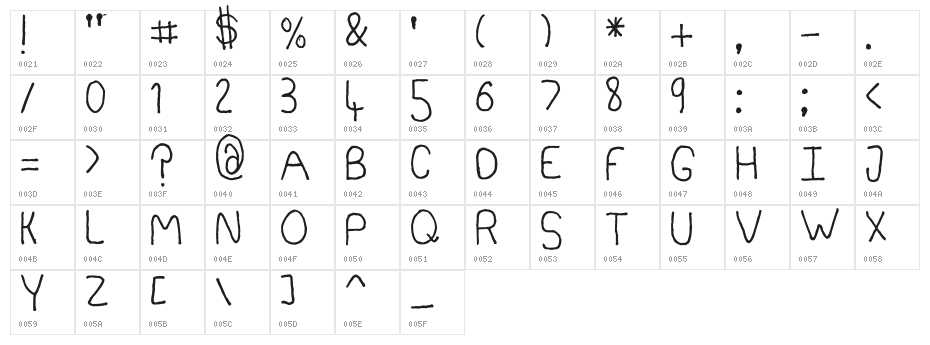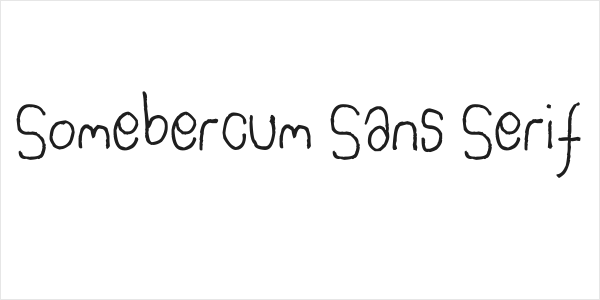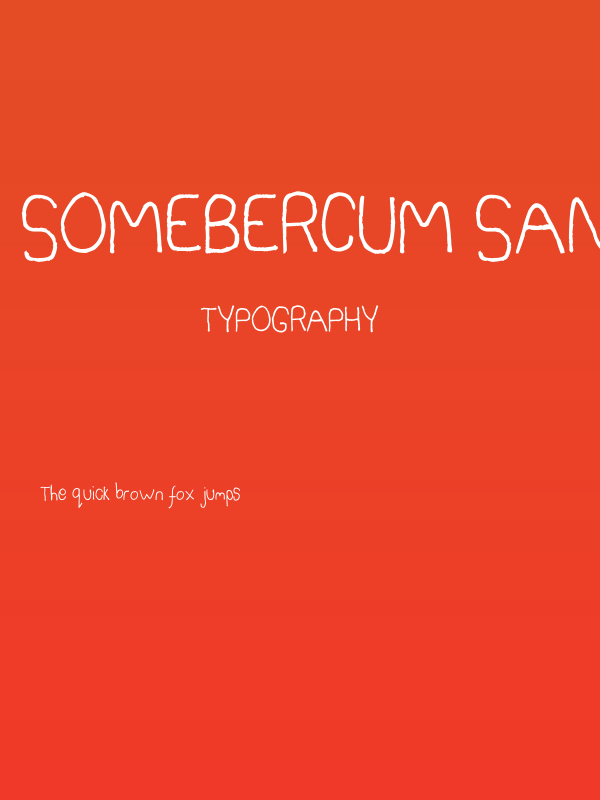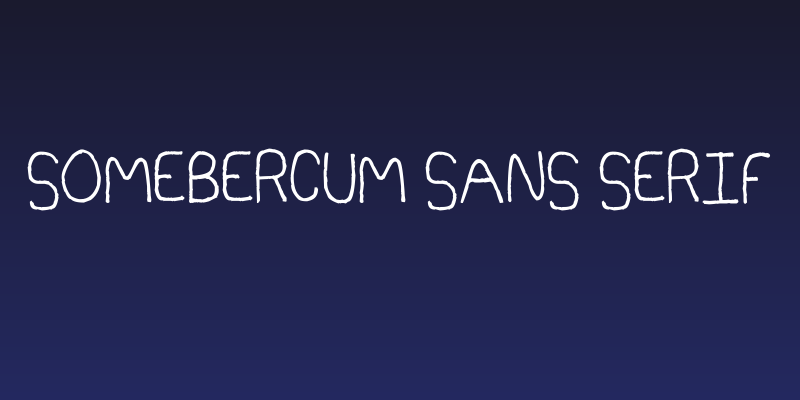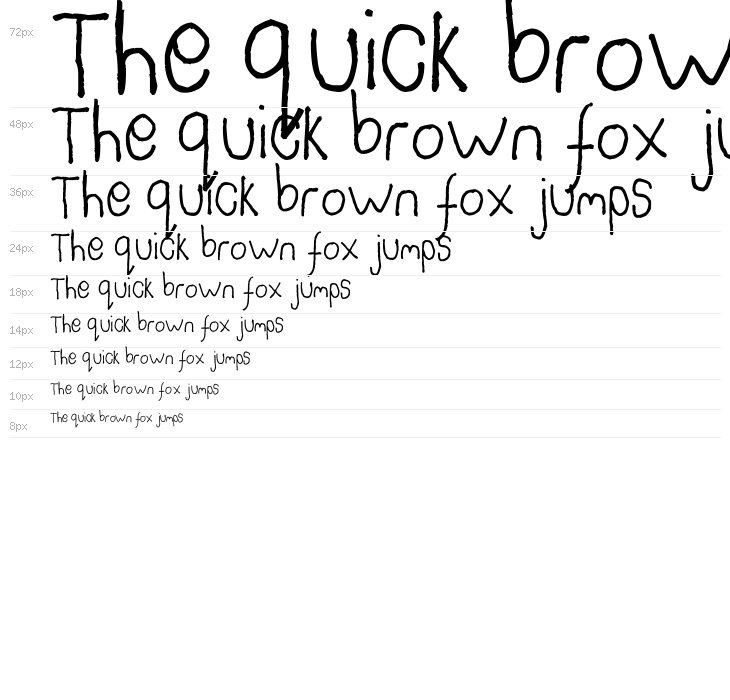
Somebercum Sans Serif Font
Somebercum Sans Serif Description
This font exhibits a playful and informal style, characterized by its hand-drawn appearance. The letters are unevenly shaped, giving it a casual and whimsical feel. The strokes are irregular, with varying thickness, adding to its organic and spontaneous look. The uppercase and lowercase letters maintain a consistent style, with rounded edges and a slightly tilted orientation. Numbers and special characters follow the same aesthetic, ensuring a cohesive visual identity. This font is suitable for projects that require a personal touch or a creative flair.
Overall StyleCasual
Use CaseHeadlines, Creative projects, Informal text
Proposed ProjectsIdeal for children's books, greeting cards, creative posters, and informal branding.